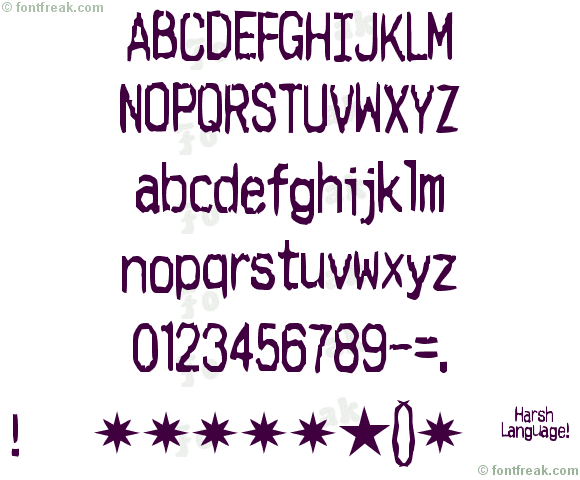
About Harsh Language
The Harsh Language font by Pizzadude is a striking display typeface that commands attention with its unique visual style. This freeware font features bold, angular letterforms that exude an edgy, urban vibe, making it ideal for projects that require a strong, assertive aesthetic. The strokes are thick and consistent, with minimal contrast, giving the font a solid, robust appearance. The spacing between characters is tight, enhancing its impactful look while ensuring legibility, even in larger sizes.
Harsh Language is particularly well-suited for use in creative projects that aim to make a statement. Its distinctive character makes it an excellent choice for movie posters, where it can evoke a sense of drama and urgency. Additionally, it can be effectively used in music event flyers or album covers, appealing to a young, contemporary audience. The font's boldness also lends itself well to restaurant menus, especially for establishments that embrace a modern or unconventional theme. Graphic designers and content creators looking to add a unique touch to their work will find this font to be a valuable asset.
The target audience for Harsh Language includes graphic designers, small business owners, and creative professionals who seek to convey a strong visual message. The font's edgy style allows for versatile applications, enabling users to capture attention across various media.
What sets the Harsh Language font apart is its ability to blend striking aesthetics with practical functionality. It stands out in a crowded marketplace, offering designers a bold choice that is both free to use and visually compelling. For those seeking an impactful typeface, the Harsh Language font free download is an excellent option, inviting creativity and innovation in any design project.